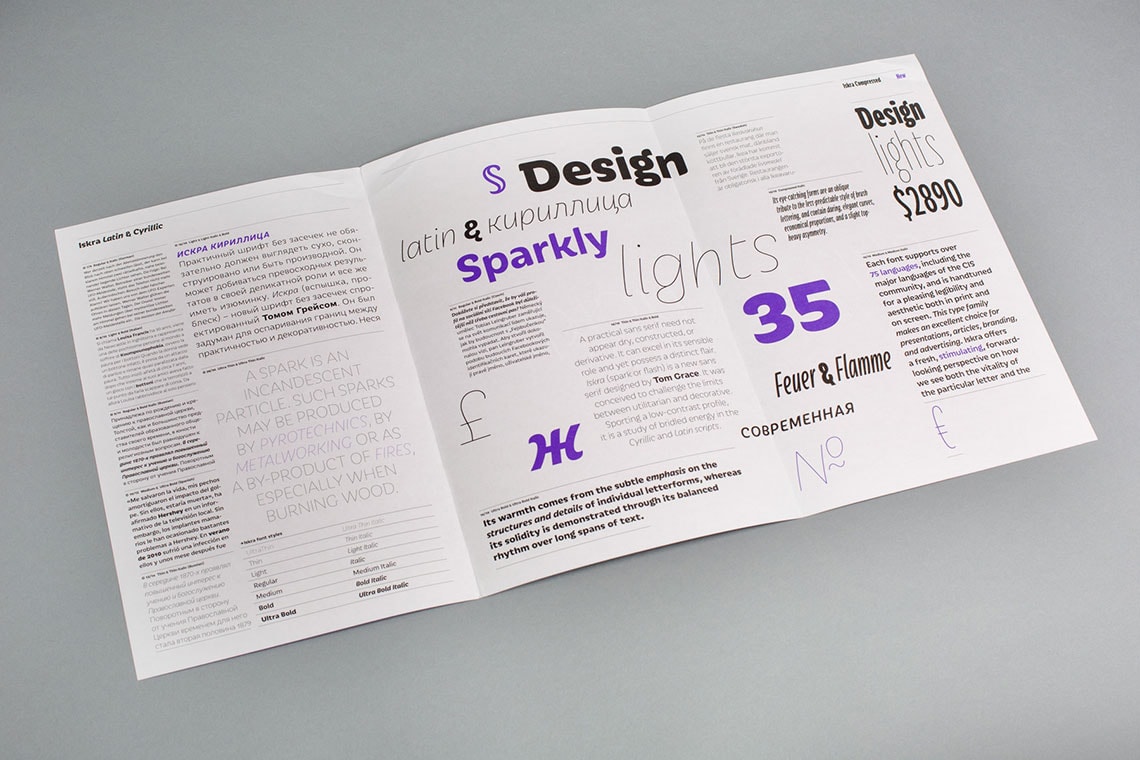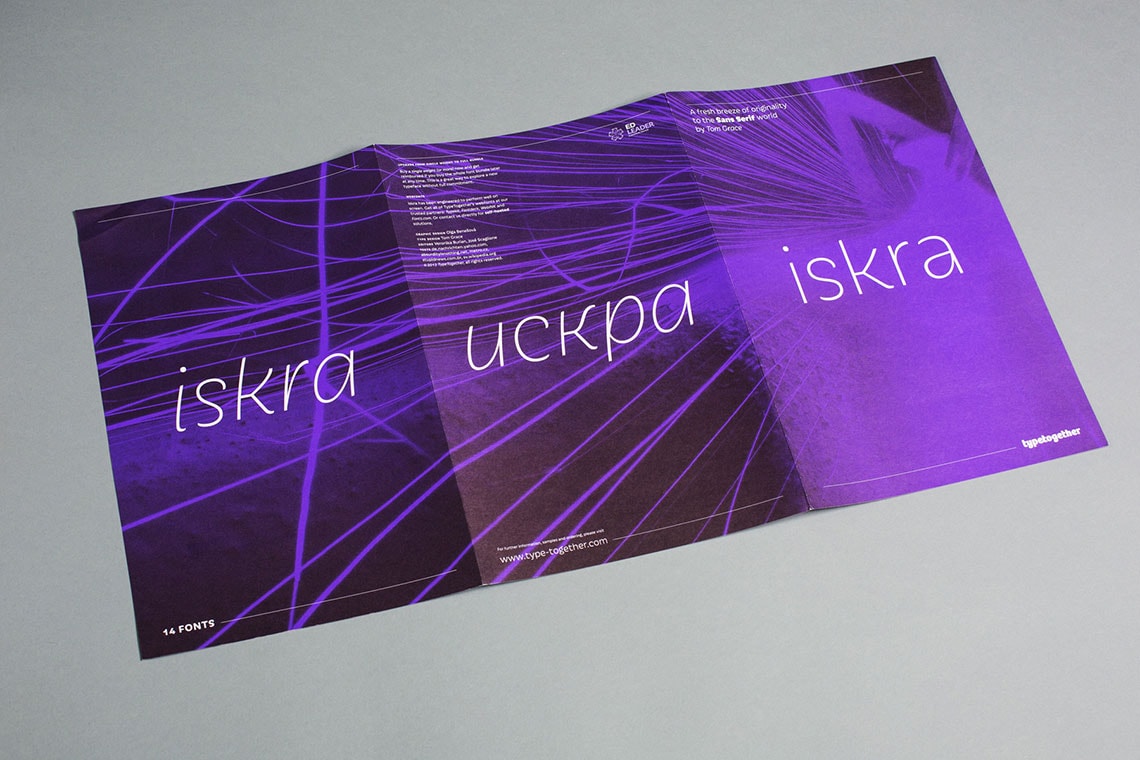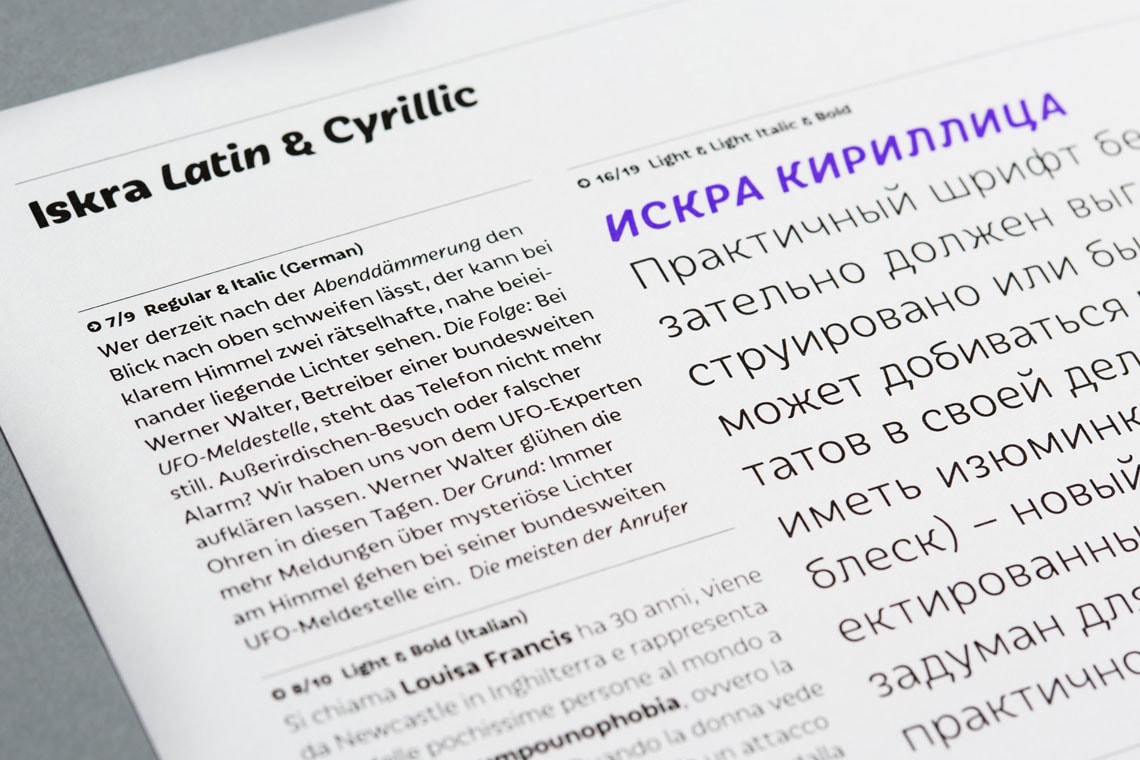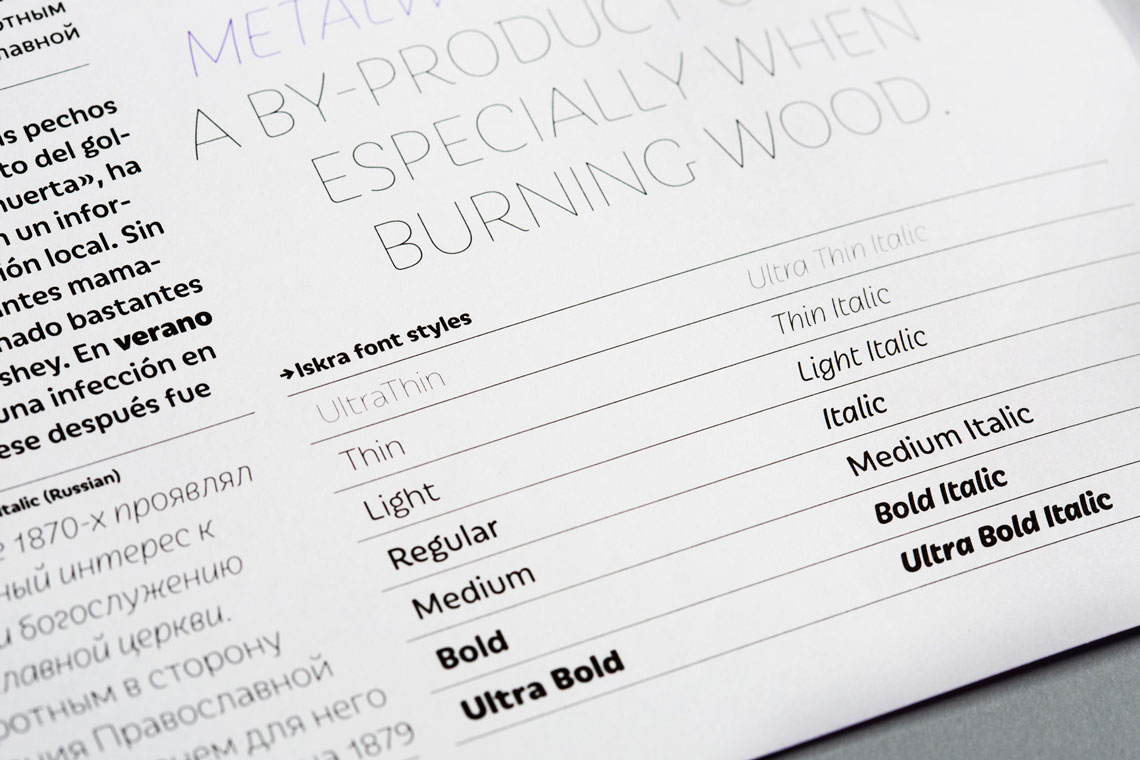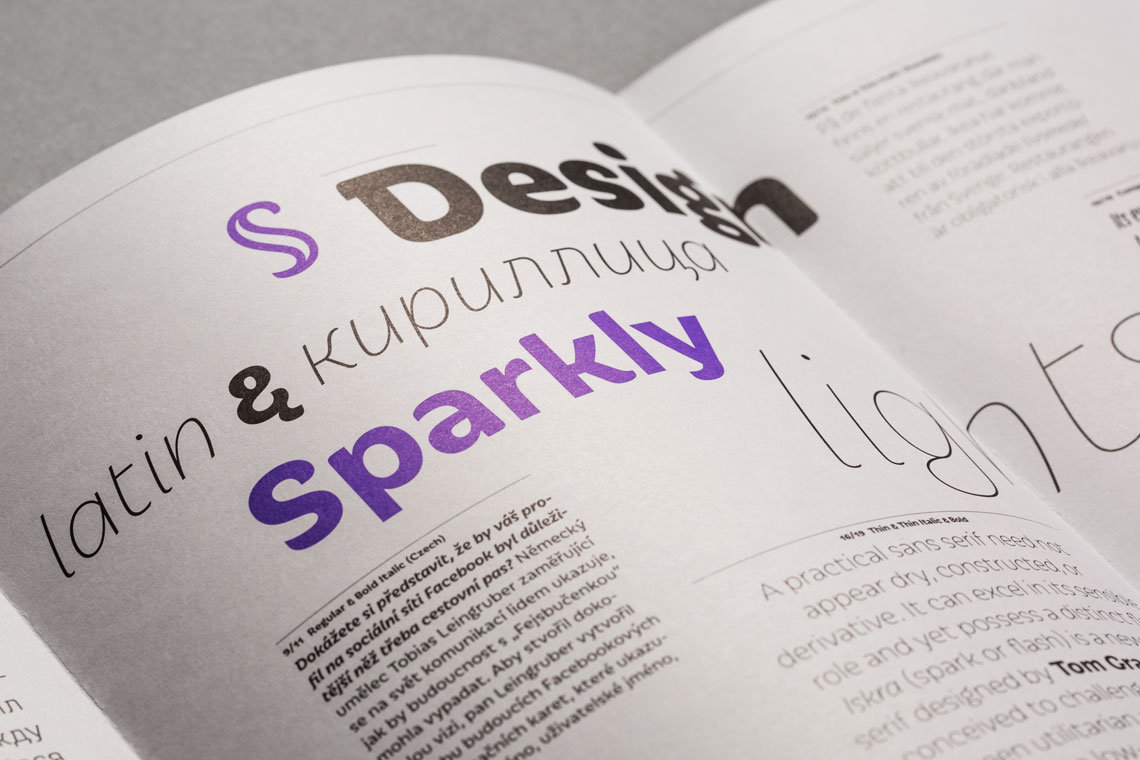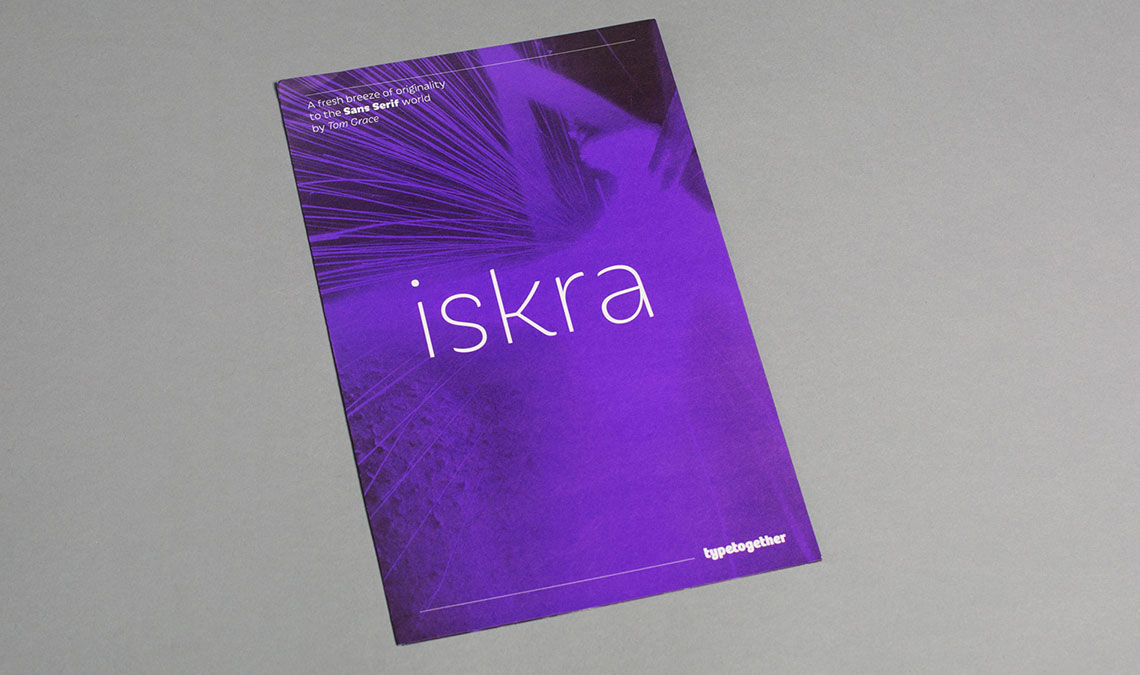
Iskra specimen
The second typeface in our series of fold-out specimens is Iskra, by Tom Grace. It is an unusual sans serif surfing along the borders of utilitarian and decorative. The specimen has been designed by Olga Benešová, featuring samples of the full family including Cyrillic versions. It folds out to 54×28 cm and has been printed by TA Tisk on Munken Lynx.